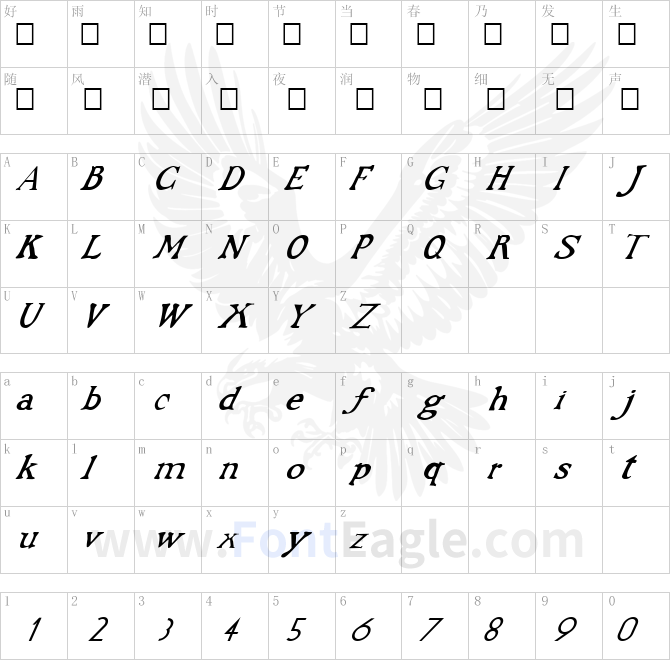
FZ JAZZY 48 ITALIC Normal.ttf Font Image
- Font name:FZ JAZZY 48 ITALIC
- Font Subfamily ID:FZ JAZZY 48 ITALIC
- Font Full Name:FZ JAZZY 48 ITALIC
- Postscript:FZ-JAZZY48ITALIC